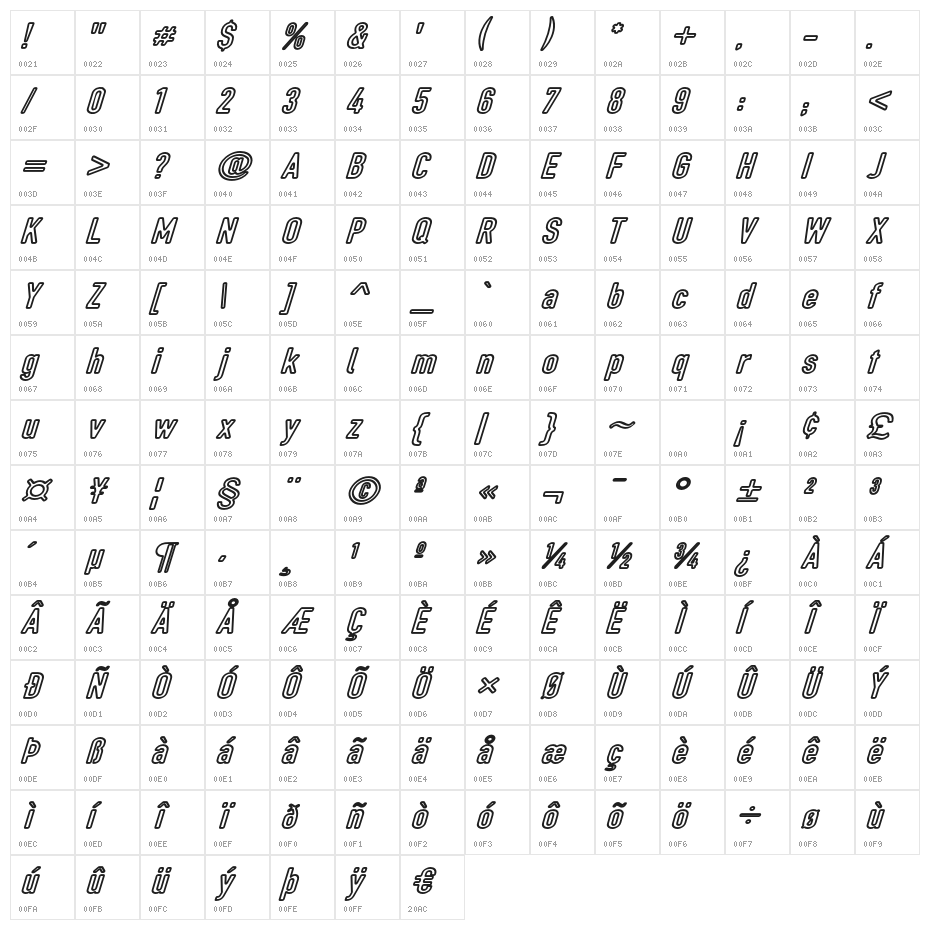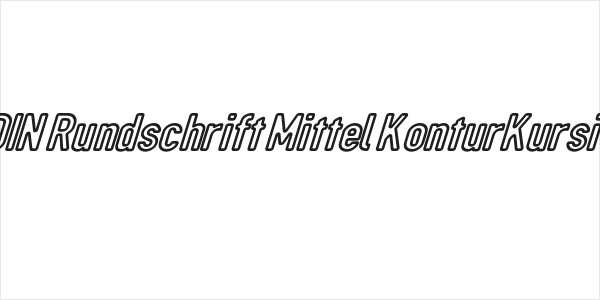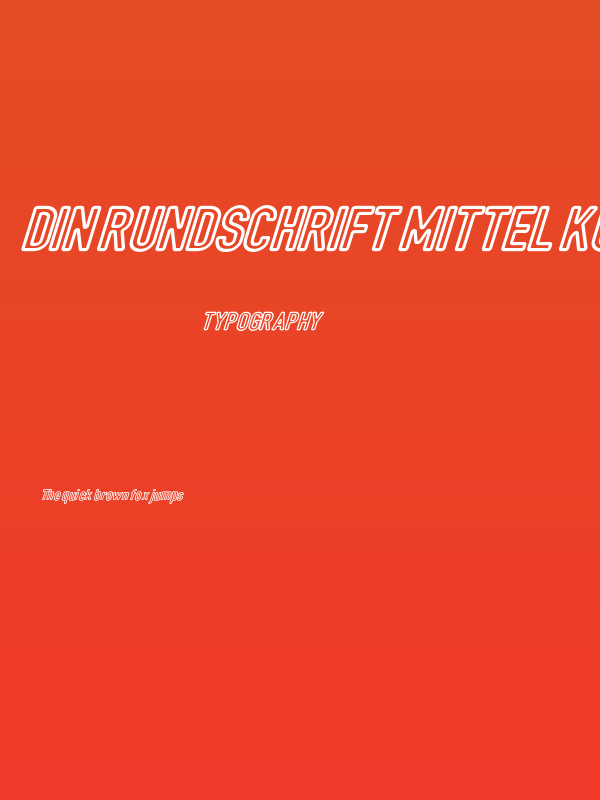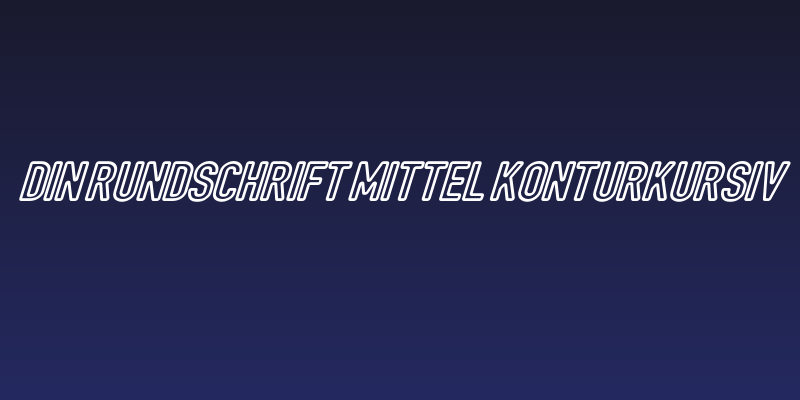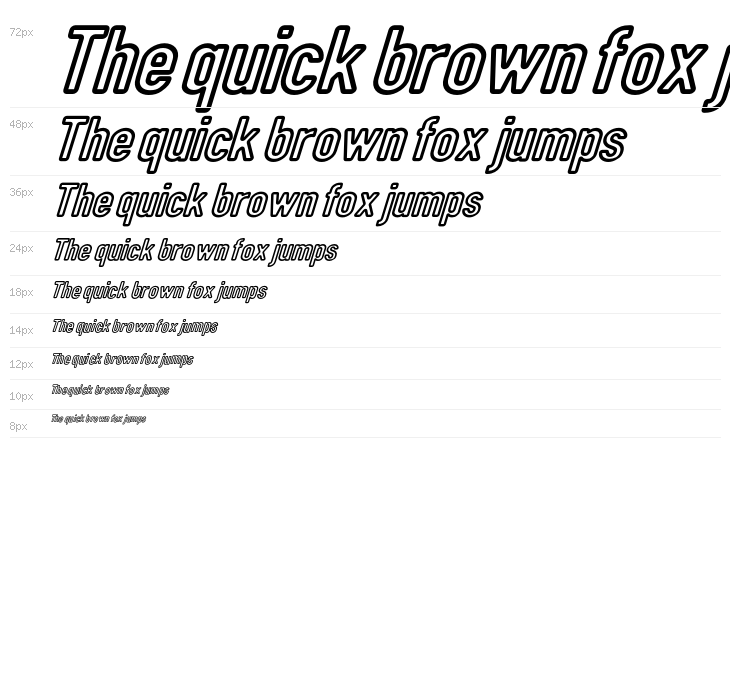
DIN Rundschrift Mittel KonturKursiv Font
DIN Rundschrift Mittel KonturKursiv Description
This font features a bold, outlined style with a modern and clean appearance. The characters are slightly italicized, giving them a dynamic and forward-leaning look. The uppercase and lowercase letters are well-proportioned, maintaining a consistent width that enhances readability. The numbers and special characters follow the same outlined and italicized design, ensuring uniformity across all glyphs. The font's structure is geometric, with rounded edges that soften its overall appearance, making it suitable for both formal and casual applications. The contrast in stroke thickness is low, as the outline is uniform throughout, providing a cohesive and balanced visual effect.
| Use Case | Headlines, Logos, Signage |
| Proposed Projects | Ideal for branding, signage, posters, and any project requiring a bold and modern aesthetic. |